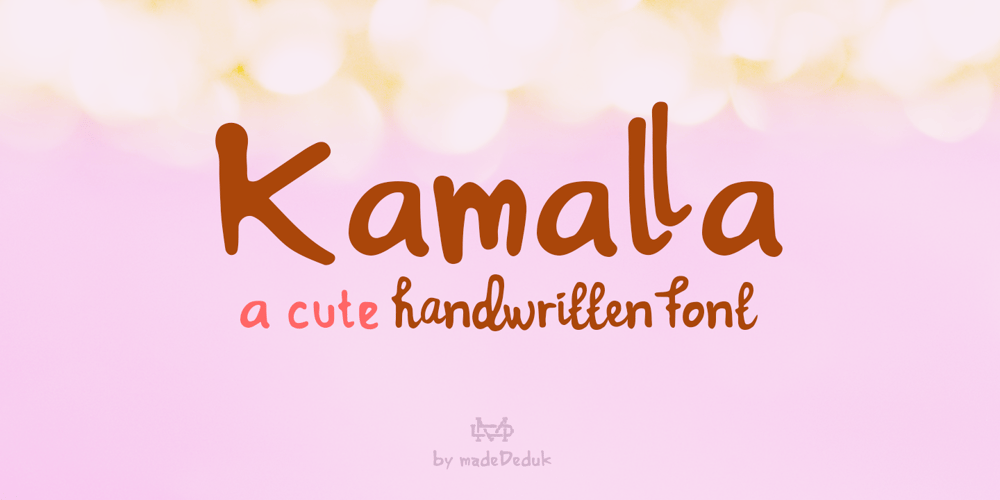
Kamalla
Kamalla font
Kamalla Font Family was designed by madededuk and published by madeDeduk. Kamalla contains 2 styles and family package options. Introducing Kamalla is a cute font with a matching script and regular will be perfect for book, title branding, product packaging, invitation, quotes, t-shirt, label, poster, logo etc.Feature Uppercase & Lowercase Number & Symbol International Glyphs Multilingual support Ligature Feel free to drop us a message any time and follow my shop for upcoming updatesShoot me on email at: dedukvic@gmail.com if you have any questionsHope you enjoy it.